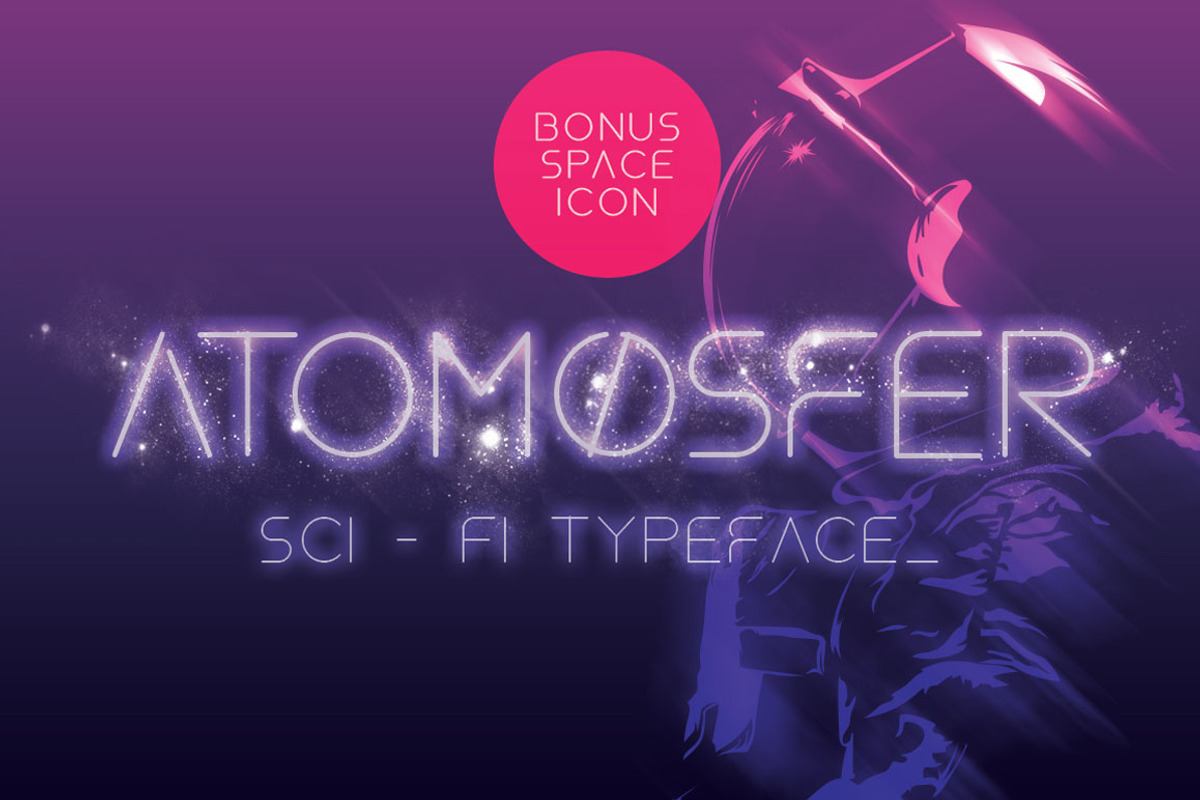
Atomosfer Free Download
Atomosfer Font Free Download
Futuristic, sleek, and boldly minimal, Atomosfer Font Free Download is a modern typeface designed to bring a clean and high-tech aesthetic to your designs. Perfect for sci-fi posters, branding, album art, UI/UX interfaces, and modern editorial layouts, this font delivers sharp lines and geometric balance with a distinct, space-age vibe.
Atomosfer stands out with its contemporary look and confident letterforms, making it ideal for projects that need a stylish, cutting-edge feel. Its unique structure adds personality while maintaining excellent readability across various formats.